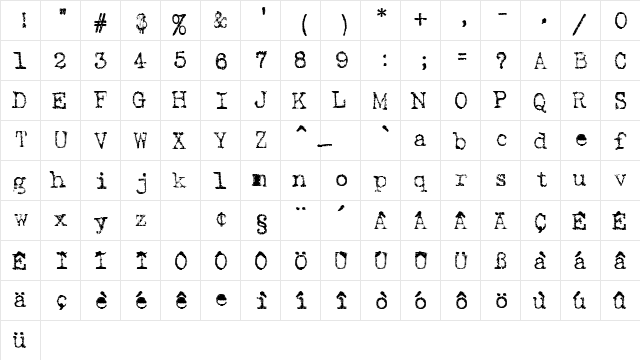
Armenschrift Regular
Design Context for Armenschrift Typeface
Armenschrift is a composed and adaptable typeface that performs quietly and consistently across a wide range of design contexts.